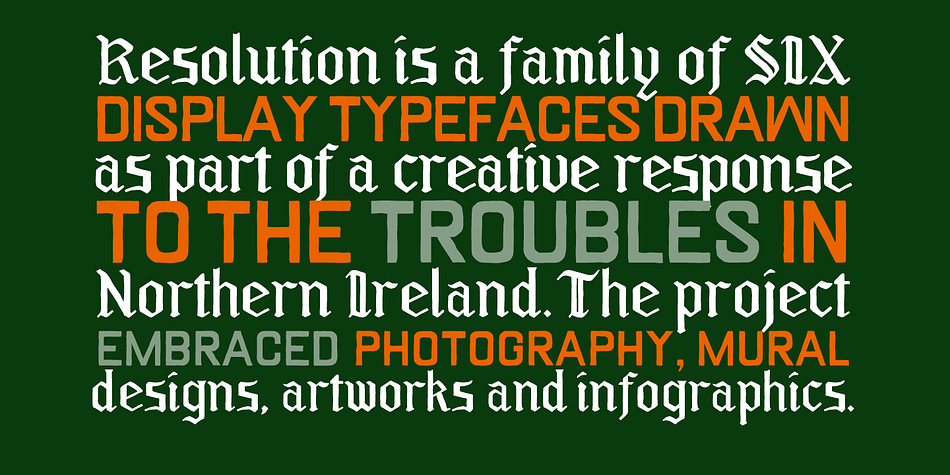
RESOLUTION
Designed by Jonathan Barnbrook and Julián Moncada, Resolution is a blackletter, slab serif and hand display font family. This typeface has six styles and was published by Barnbrook Fonts.
A family of display typefaces that were developed as part of a creative response to the political situation in Northern Ireland. The project, by design studio Barnbrook, also encompassed photography, mural designs, artworks, infographics, as well as user-submitted and student works. Resolution includes six weights across three stylistic variants: Blackletter, Slab and Sans. You can read more about the project here.
Foundry Barnbrook Fonts
Styles Blackletter, Hand Display, Slab Serif
Designers Jonathan Barnbrook, Julián Moncada, Ryuhei Nakadai